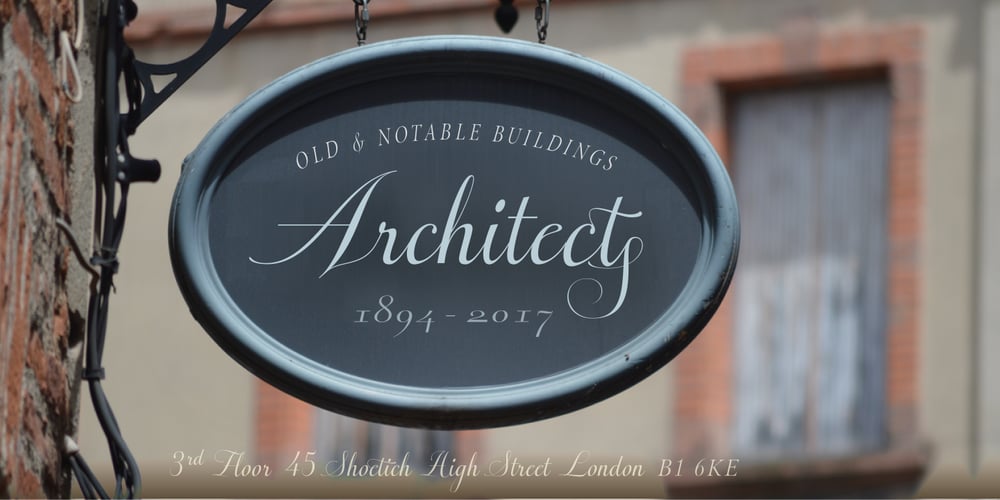
Citix Two Condensed Font Family was designed by Olcar Alcaide and published by Eurotypo. Citix Two Condensed contains 1 styles and family package options. Citix Two Condensed is a new font derived from Citix Regular –a traditional pen-formed flowing script–, but containing a complete new set of capital letters, titling, ligatures and swashes. This font may be a good option to combine with Citix Regular, specially in fine tune and accurate works, suitable for commemorative letters, invitations cards, lettering, logotype design and the most elegant visual communications projects. This font comes with five different kinds of capitals, Contain full OpenType features to work with: a full set of swashes, stylistic alternates, standard and discretional ligatures. Small caps, Central European Languages, Case sensitive forms, Old style numerals, ornaments and tails.